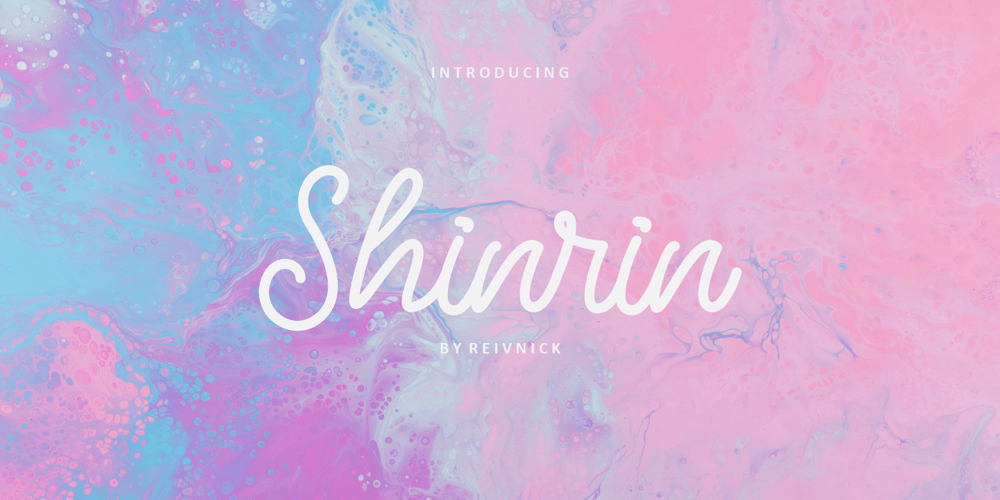
Shinrin Font Family was designed by Benediktus Hosni Iryandito and published by ReivNick. Shinrin contains 1 styles and family package options. Introducing our latest product Shinrin Script Font! Shinrin is perfect for fashion, e-commerce brands, trend blogs, or any business that wants to appear classy. It contains a basic set of lower & uppercase letters, a large range of punctuation, and numerals.